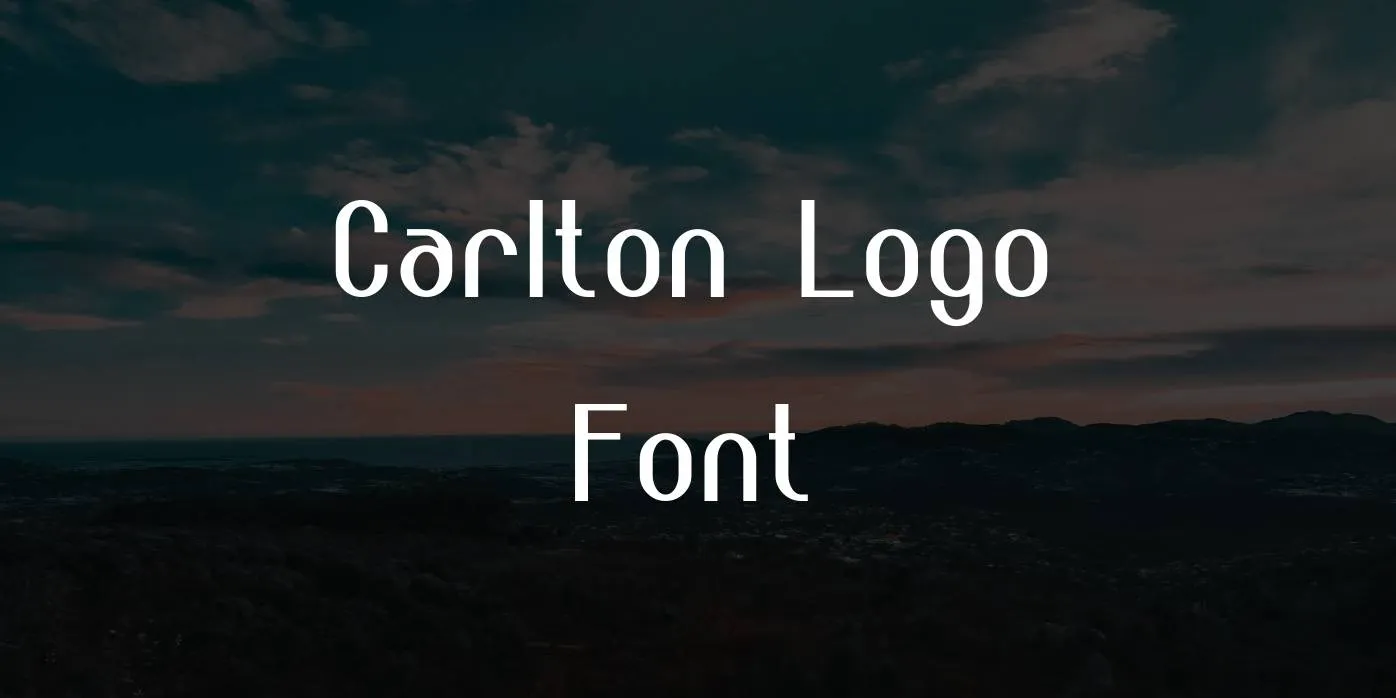
Carlton Logo Font
Carlton Logo Font is a sans serif typeface family designed by Paul Barnes and released through Commercial Type in 2009. The design was inspired by a 1930s book on the history of the Bauhaus. The family includes four weights—light, regular, medium, and bold—each with corresponding oblique versions. The light and regular weights include small caps, while the medium and bold weights do not.
It is much similar to the cartoon network font and you can make many stunning arts and illusions with the help of this font. The typeface is most suitable for headlines and display text. It can also be used for body copy in small sizes. The font family has been used by a number of high-profile brands.
The glyph of this font family has a full range of characters, including uppercase, lowercase, numerals, and punctuation.